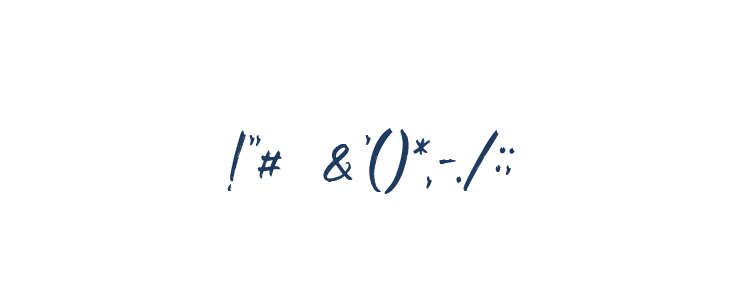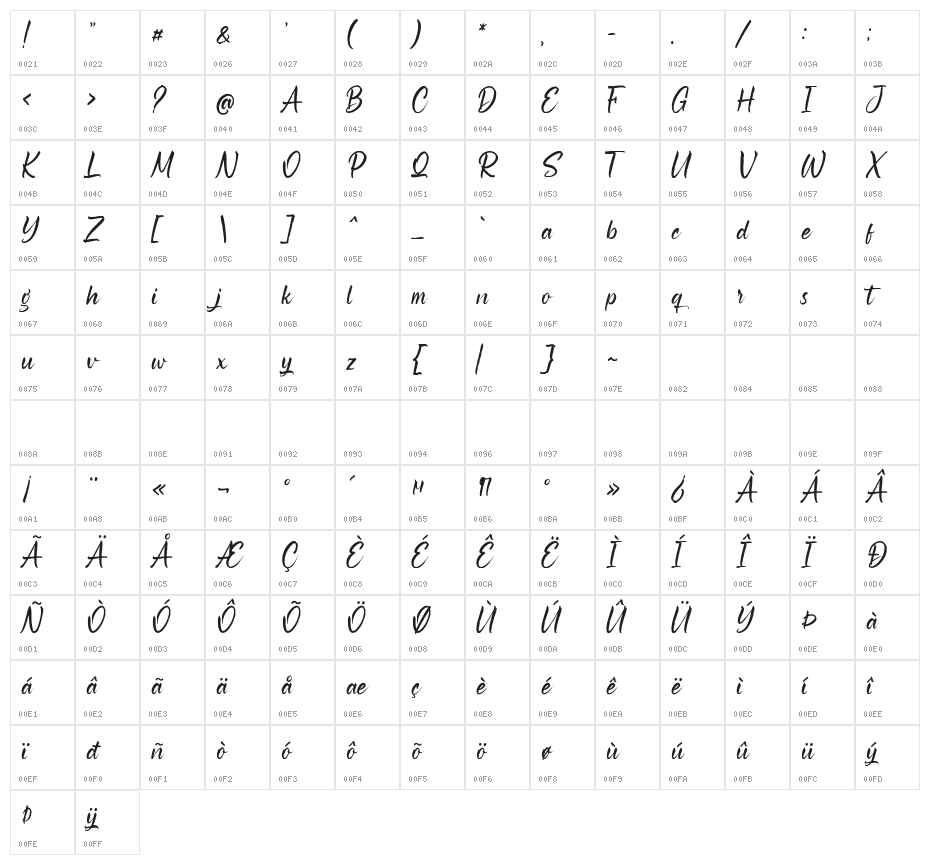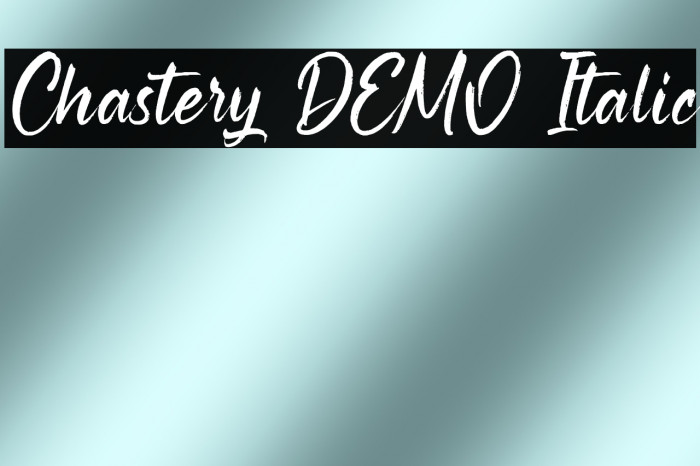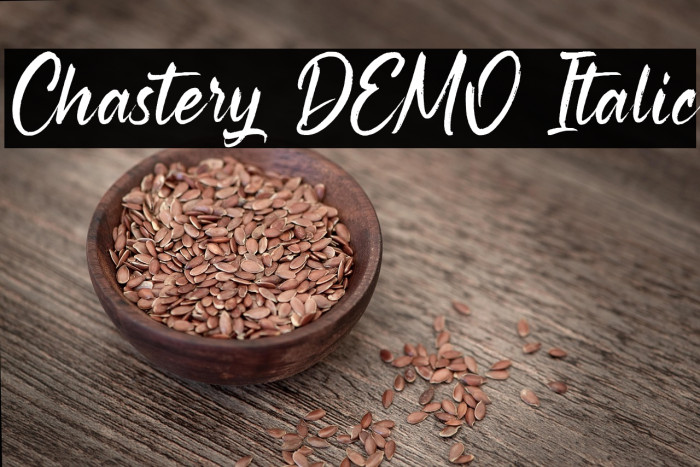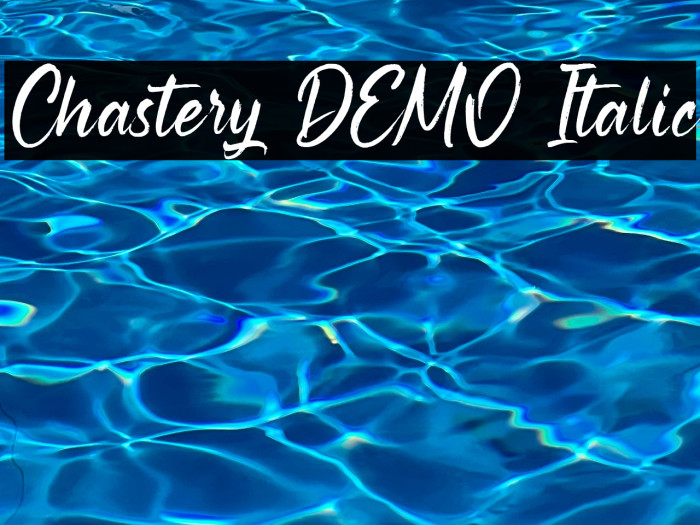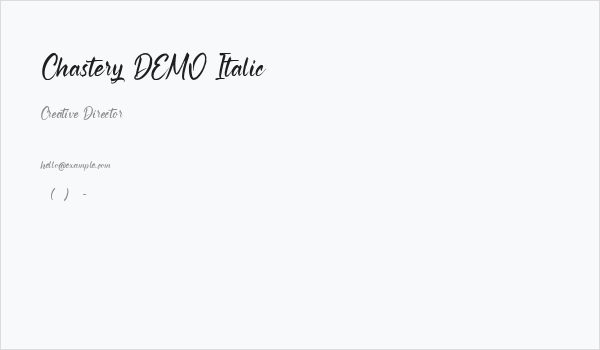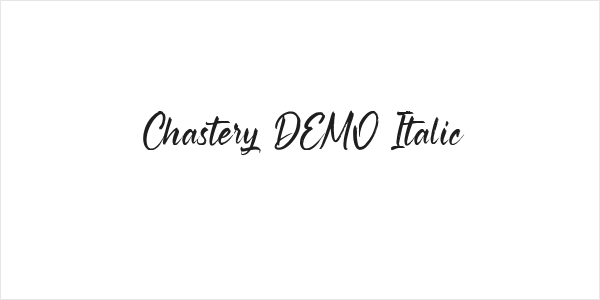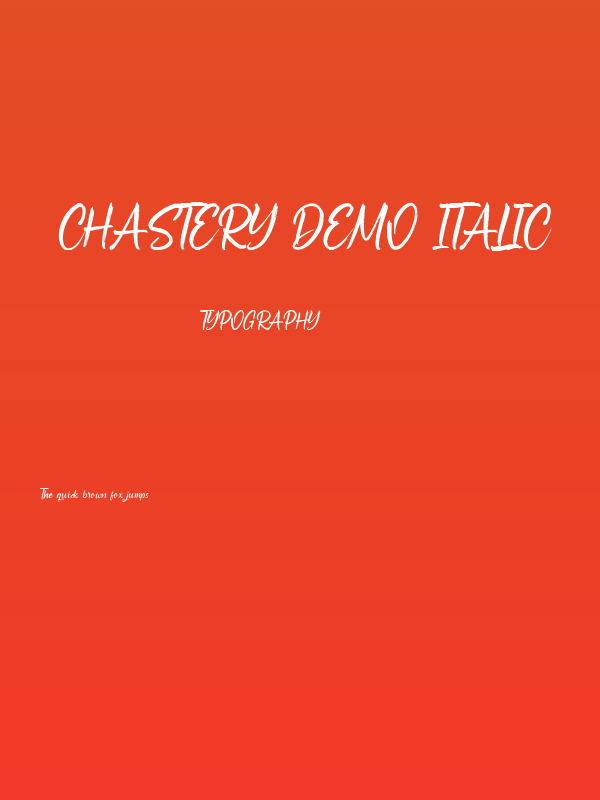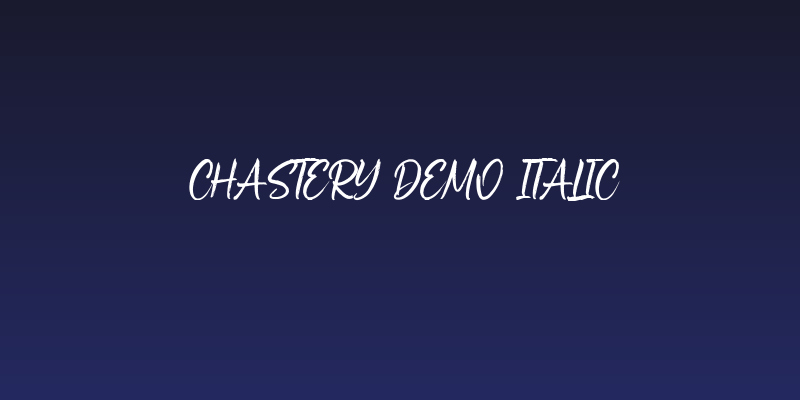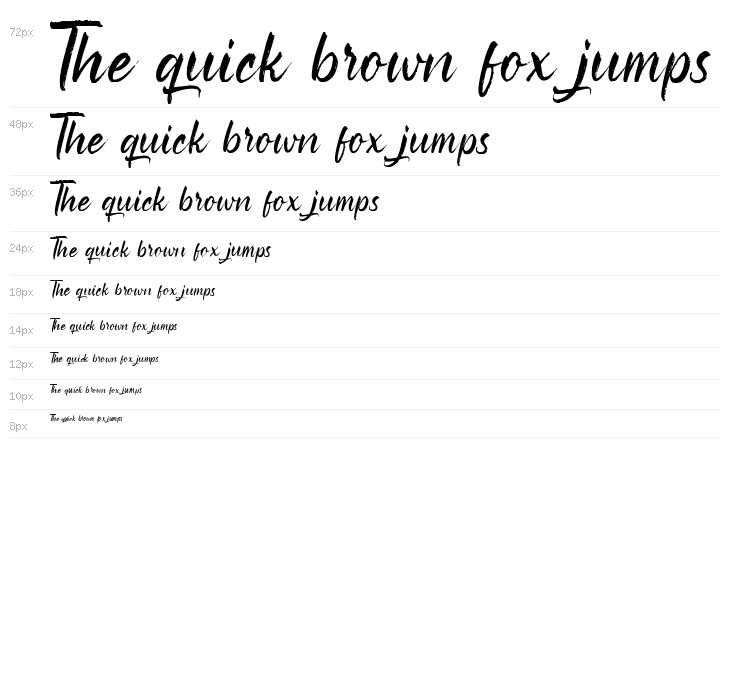
Chastery DEMO Italic Font
Chastery DEMO Italic Description
This font exhibits a dynamic and expressive style, characterized by its flowing, cursive script that mimics the fluidity of handwriting. The letters are elegantly connected, with a slight slant that enhances its italic nature. Each character is crafted with varying stroke widths, adding a sense of movement and energy. The uppercase letters are bold and prominent, while the lowercase letters maintain a consistent flow. The numerals and special characters are designed to complement the overall aesthetic, ensuring a cohesive appearance across all text. This font is ideal for projects that require a personal touch, such as invitations, greeting cards, and artistic branding.